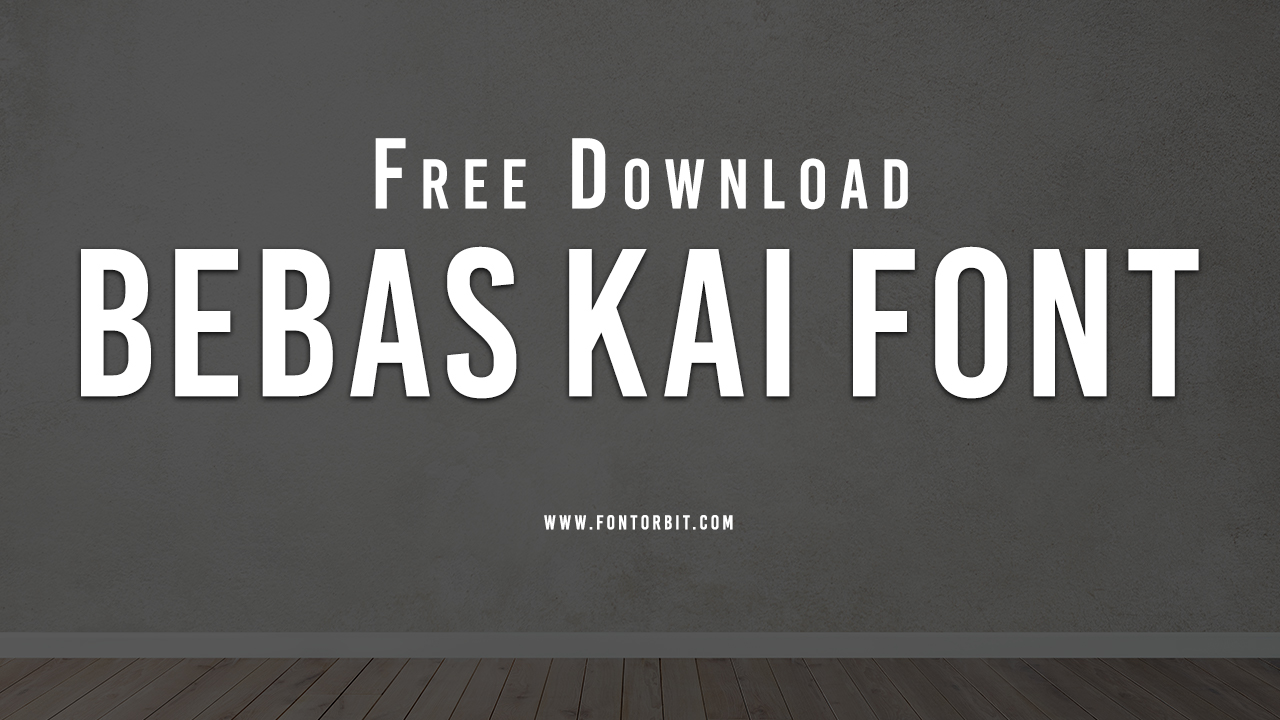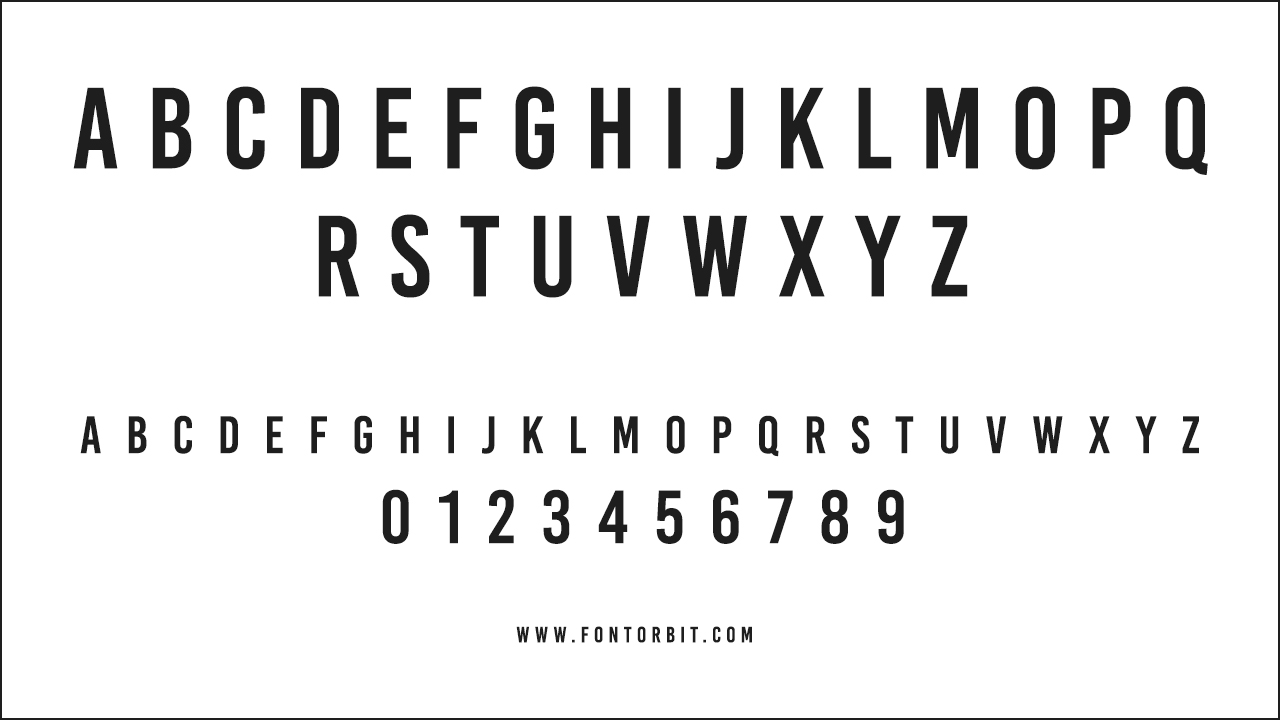
Bebas Kai Sans Serif Font is a modern, bold typeface designed by Ryoichi Tsunekawa from Dharma Type. Known for its clean, strong lines and soft character, Bebas Kai has become a popular choice for a wide array of design projects.
This font stands out for its ability to convey elegance while maintaining a contemporary feel, making it suitable for both professional and creative designs. Bebas Kai is ideal for headlines, titles, and anywhere a bold statement is needed.
Bebas Kai belongs to the sans-serif category and offers a strong, impactful style that differentiates it from other bold fonts. Supports 59 languages. Its versatility makes it an excellent choice for designers looking for a font that combines readability with a bold visual presence. Although Bebas Kai does not have as extensive a style range as some other fonts, its unique character and versatility make it an appealing option for various design needs.
The strong but soft character of Bebas Kai ensures it remains readable even in larger formats or as part of intricate designs. With its bold style and elegant theme, Bebas Kai is perfect for design applications needing a visual impact. Bebas Kai brings a modern and professional touch to various projects, whether for digital or print. Here are some common uses for Bebas Kai:
- Social media
- Magazine titles
- Clothing
- Large print formats
- Trailers
- Banners
- Office branding
- Email marketing templates
- Stadium branding
- Animated logos
Bebas Kai is a timeless and versatile typeface that excels in different design contexts. Whether creating a logo, designing a social media post, or crafting a headline, this font family provides the boldness and clarity needed to make a statement.
3.When Was The Bebas Kai Typeface Created?
Bebas Kai was designed by Ryoichi Tsunekawa and released by Dharma Type. It is a part of the Bebas family, known for its bold, modern design and its widespread use in various digital and print media since its release.